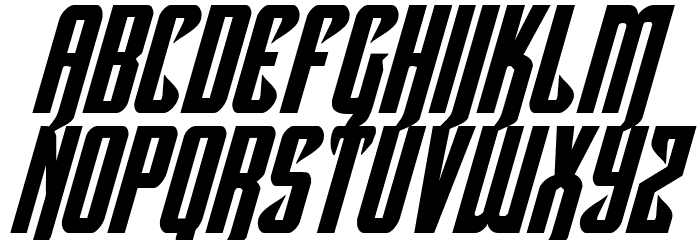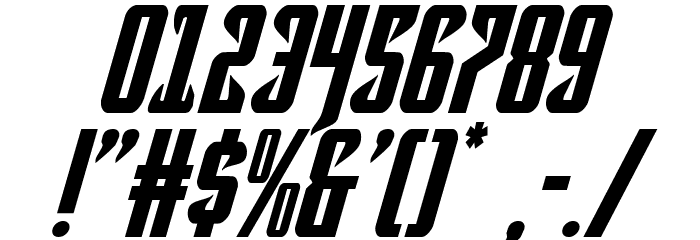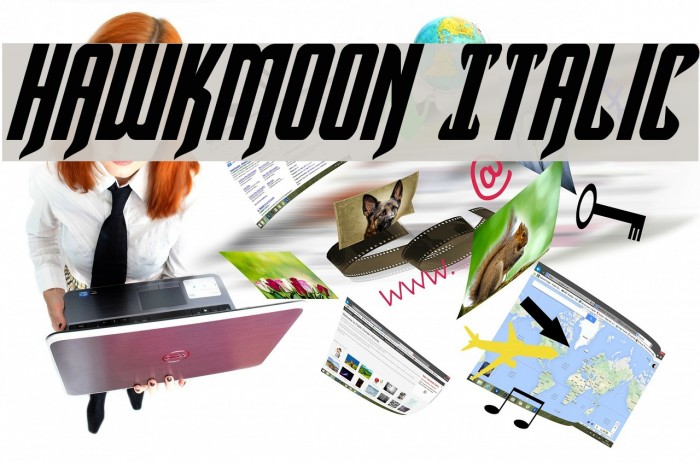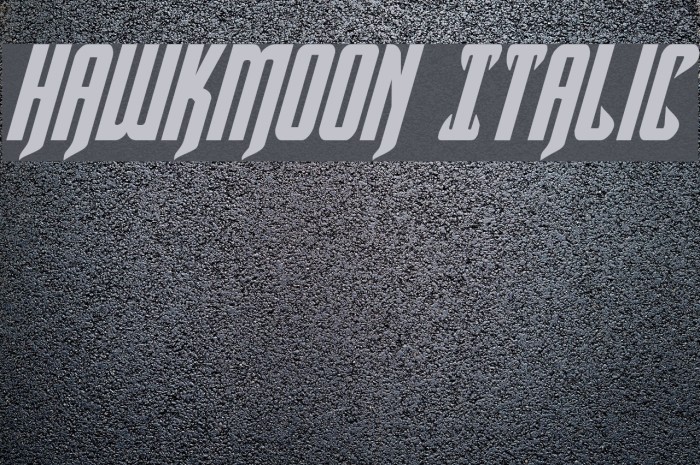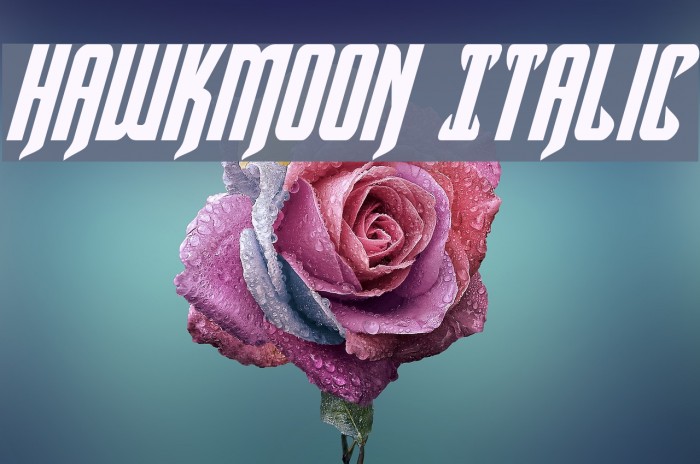
Hawkmoon Italic Font
This font features a bold and dynamic italic style, characterized by its sharp angles and elongated forms. The letters are tightly spaced, creating a sense of urgency and movement. The uppercase and lowercase characters maintain a consistent slant, enhancing the italicized effect. Numbers and special characters are designed with the same angular precision, ensuring uniformity across all glyphs. The thick strokes and high contrast between thick and thin lines give it a striking appearance, making it suitable for attention-grabbing designs. Its unique style is both modern and slightly aggressive, ideal for projects that require a bold statement.
A bold, italic font with sharp angles and high contrast, perfect for dynamic designs.
- Proposed Projects: Ideal for sports branding, action movie posters, dynamic logos, and edgy advertisements.
- Character Spacing: Tight